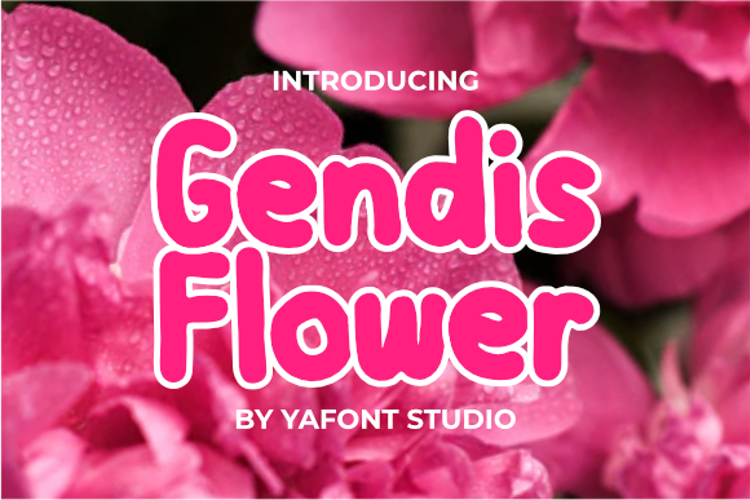
Gendis Flower Font
Gendis Flower is a friendly display font. It is the best choice for creating eye catching logos, branding and quotes. Whether you’re looking for fonts for Instagram or calligraphy scripts for DIY projects, this font will turn any creative idea into a true piece of art!